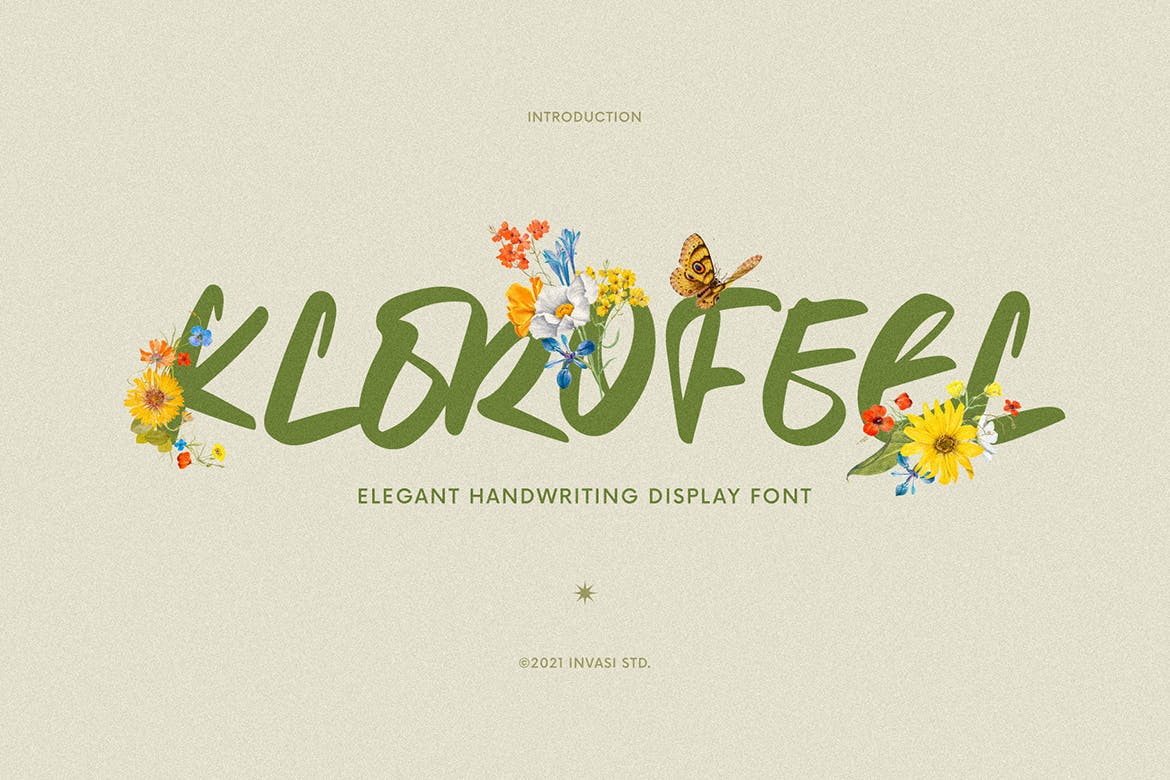
Klorofeel - Elegant Font
Perfect for luxury branding, wedding invitations, editorial design, logos, packaging, and high-end fashion projects.
The Klorofeel - Elegant Font excites designers with its graceful curves and refined style that effortlessly conveys sophistication and timeless elegance.
Font families: Klorofeel Regular, Klorofeel Italic, Klorofeel Bold.
The Klorofeel - Elegant Font Free Download is a beautifully crafted typeface designed to elevate your projects with a touch of class and charm. Its smooth lines and delicate strokes make it ideal for premium branding and editorial work that requires a luxurious and polished look. Whether you’re designing wedding invites, upscale packaging, or elegant logos, Klorofeel delivers sophistication.
One of the standout features of Klorofeel - Elegant Font is its versatility in blending classic elegance with modern appeal. It works perfectly for both headlines and body text, maintaining readability while adding a refined character.
In branding, Klorofeel conveys luxury, femininity, and grace. It pairs beautifully with soft color palettes, minimalist layouts, and high-quality imagery, helping brands communicate exclusivity and style.
For digital projects, this font enhances website headers, social media posts, and digital marketing materials with its sleek, elegant aesthetic. Its refined design ensures your digital presence feels upscale and memorable.